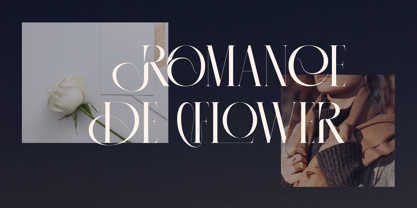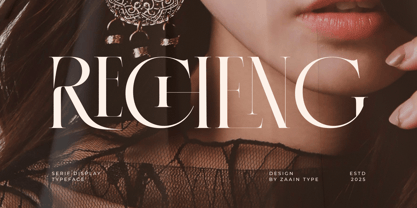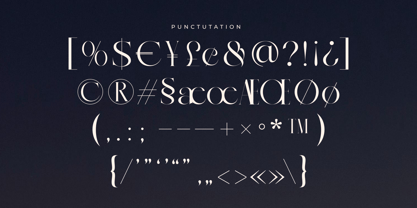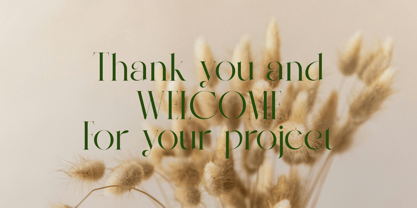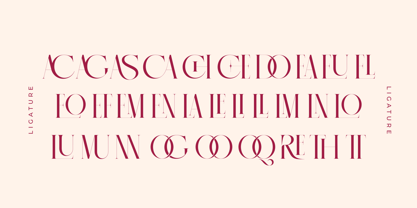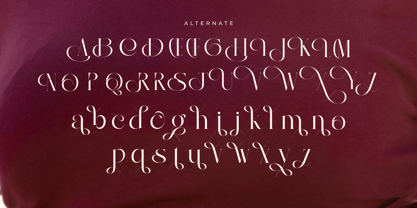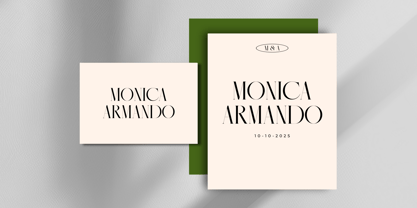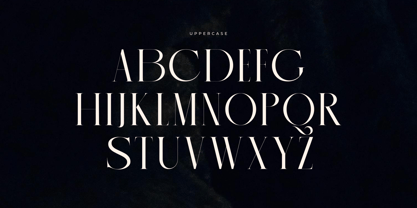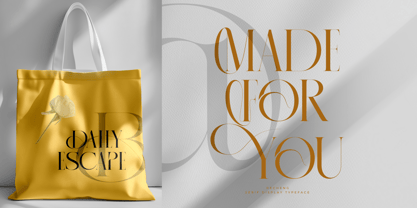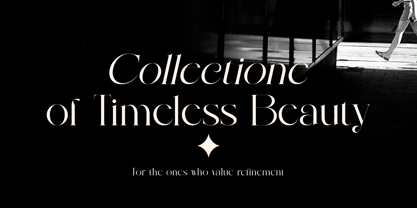
Recheng
by Zaain Type
The Recheng Font Family was designed by Ju Naen and published by Zaain Type. Recheng contains 2 styles and family package options. More about this family
RECHENG is a refined serif typeface that blends timeless elegance with modern precision. Its balanced proportions and graceful contrast evoke a sense of sophistication, making it ideal for branding, editorials, and high-end design projects. Each curve and serif is thoughtfully crafted to create harmony between classic beauty and contemporary clarity. Perfect for designers who seek a typeface that feels both traditional and fresh, RECHENG delivers a confident, distinguished voice across print and digital platforms